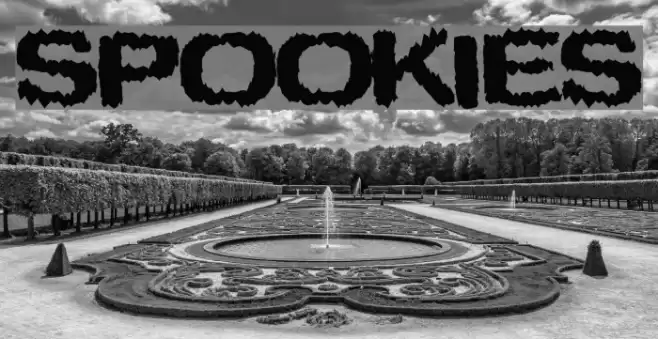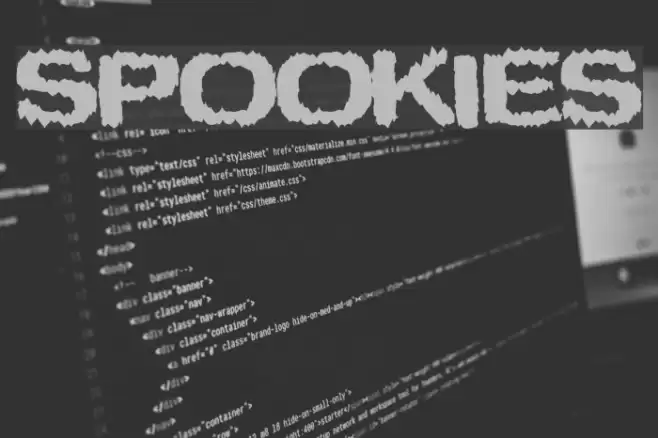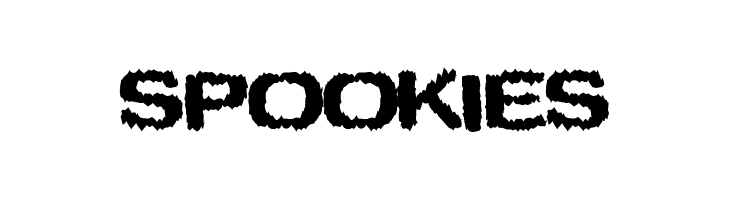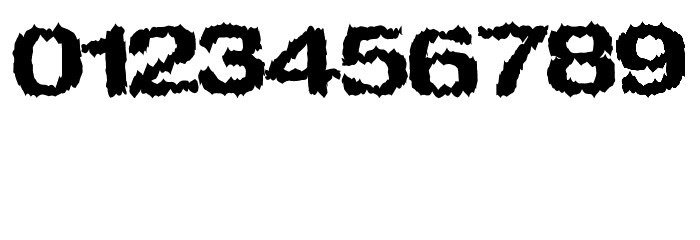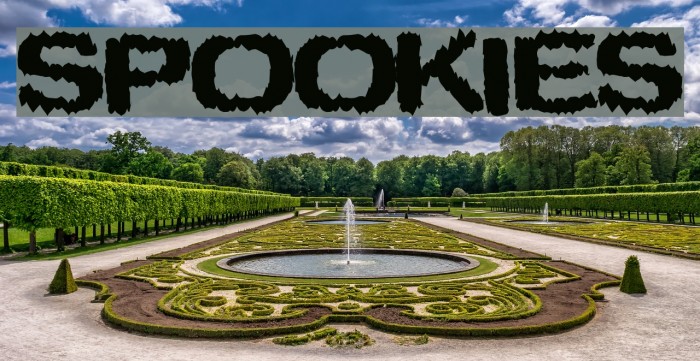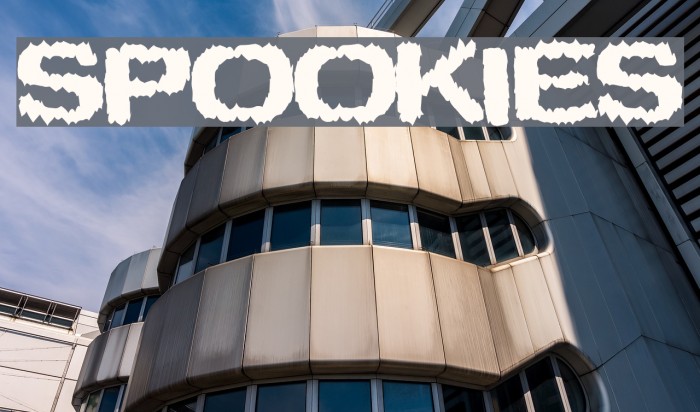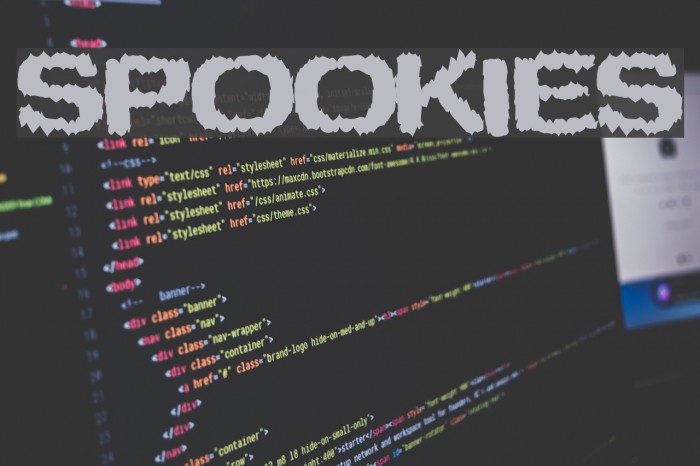
Spookies Font
Spookies Description
This font features a jagged, irregular edge that gives it a spooky and eerie appearance, reminiscent of torn paper or rough brush strokes. The uppercase letters are bold and impactful, making them suitable for attention-grabbing headlines or titles. The numbers and special characters maintain the same rough texture, ensuring consistency across all characters. This font is ideal for Halloween-themed projects, horror movie posters, or any design that requires a touch of the macabre. Its unique style makes it stand out, but it may not be suitable for body text due to its decorative nature.
A jagged, spooky font with an eerie, torn-paper appearance from Uncategorized fonts.
- Proposed Projects: Halloween invitations, horror movie posters, spooky event flyers.